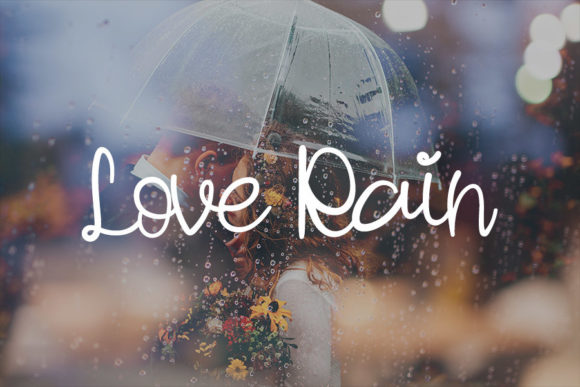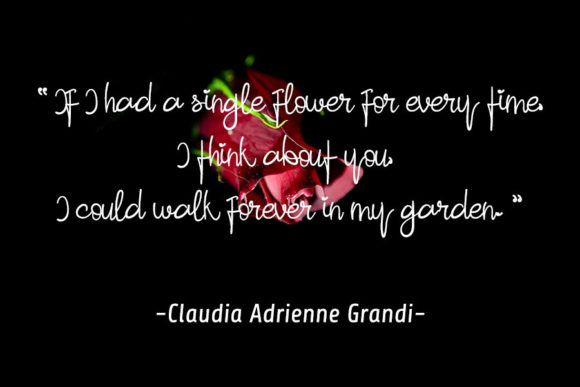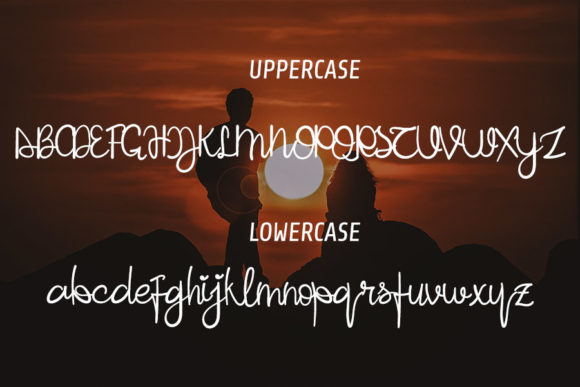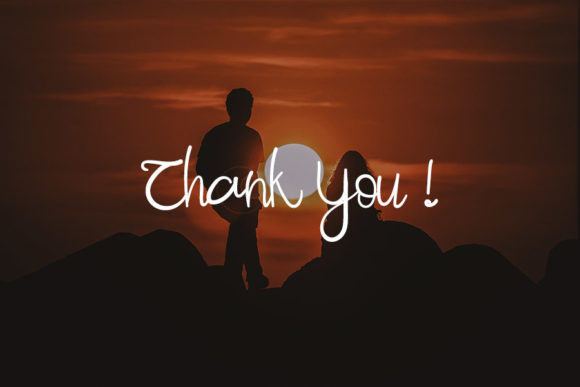
Introduction to Highway Romantic Font
There’s something special about a design that captures the essence of romance. Perhaps it’s the soft curves, the elegant lines, or the sense of sophistication that exudes from every pixel. For designers, finding that perfect font can be a game-changer – especially when working on high-end projects like weddings, luxury brands, or high-end stationery.
As you scroll through your design resources, you might stumble upon the Highway Romantic Font. This beautiful script font has been making waves in the design community, and for good reason. With its classy, elegant, and modern look, it’s the perfect addition to any creative project.
Key Features of Highway Romantic Font
- High-quality, hand-drawn design for a unique and creative touch in your projects.
- Perfect for adding a touch of whimsy and romance to your designs, from wedding invitations to travel brochures.
Honest Review: Highway Romantic Font
I recently stumbled upon the Highway Romantic Font and was excited to try it out for my latest design project. As a designer, I’m always on the lookout for high-quality fonts that can add a touch of magic to my work.
Here’s what works well: ✨ The font has a beautiful, dreamy quality that’s perfect for creative projects that require a romantic or vintage vibe. The letters are well-designed and have a smooth, even texture that looks great on both light and dark backgrounds. Plus, the font is a free download, making it a fantastic resource for designers on a budget.
- Great for creative projects
One limitation I noticed is that the font is not ideal for large blocks of text. The letters can start to look a bit too ornate and overwhelming when used extensively. ⚠️ However, this is a minor issue that can be easily worked around by mixing in other fonts or using the font for headings and titles only.
Overall, I’m really impressed with the Highway Romantic Font. It’s a fantastic design resource that can add a touch of elegance and sophistication to any creative project. With its high-quality design and free download option, it’s definitely worth checking out for any designer looking to elevate their work.
Tips for Getting the Most Out of Highway Romantic Font
To get the most out of Highway Romantic Font, use it in conjunction with a transparent background to create a romantic and whimsical design. Experiment with different font sizes and styles to add depth and interest to your design.
Highway Romantic Font is commonly used in wedding invitations, romantic getaways, and travel brochures. Its high quality and unique design make it an excellent choice for any creative project that requires a touch of romance and whimsy.